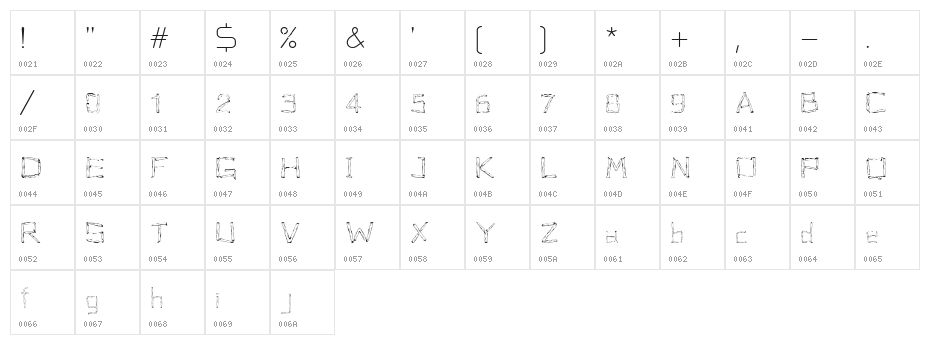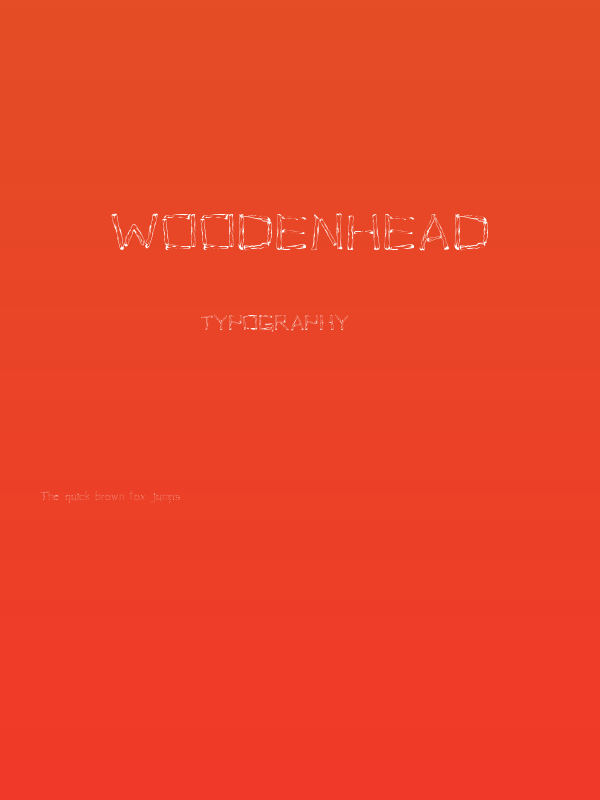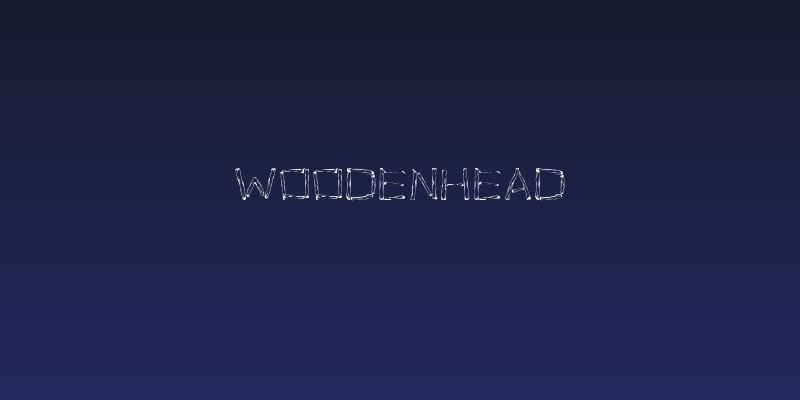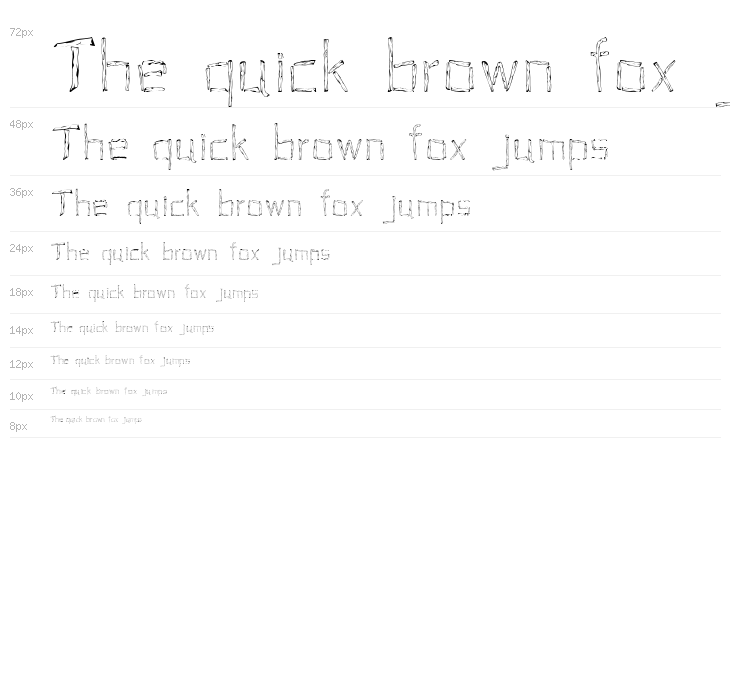
Woodenhead Font
Woodenhead Description
This font features a unique, textured design that mimics the appearance of wood grain, giving each character a rustic and natural feel. The letters are crafted with irregular edges and intricate details, resembling hand-carved wooden blocks. This style creates a sense of depth and dimension, making it stand out in any design. The uppercase and lowercase letters maintain a consistent aesthetic, while the numbers and special characters are equally detailed, ensuring a cohesive look across all text elements. The font's organic appearance makes it ideal for projects that require a touch of nature or a handcrafted vibe.
| Overall Style | Rustic, Natural, Handcrafted |